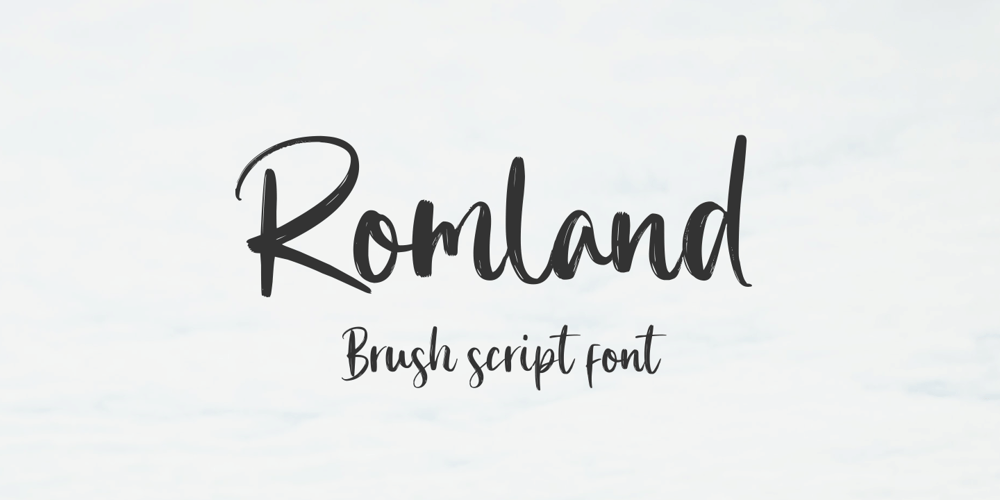
Romland Font Family was designed by Muhamad Yusron Billah and published by Sronstudio. Romland contains 1 styles and family package options. Romland – Handbrush Font perfect for branding, invitation, stationery, wedding designs, social media posts, advertisements, product packaging, product designs, label, photography, watermark, special events, and more.Features: Uppercase and lowercase letters Multilingual symbols, numerals, and punctuation Follow Instagram: @sronstudioThank You!